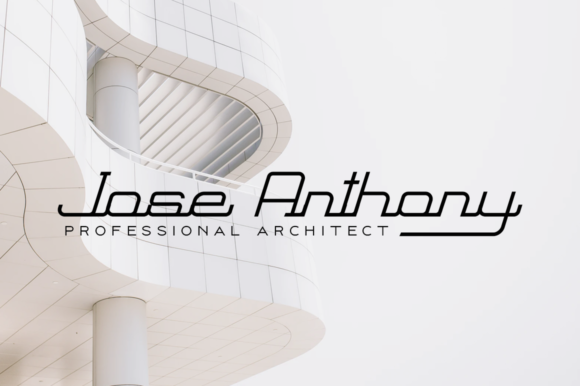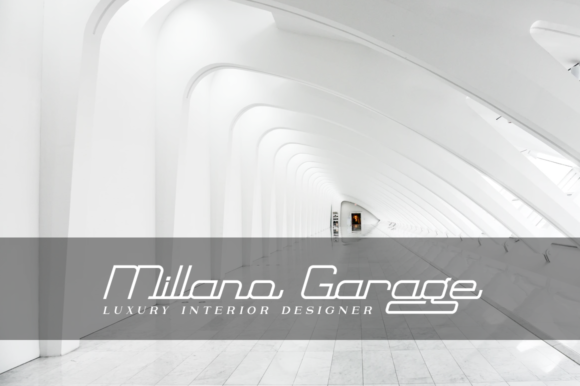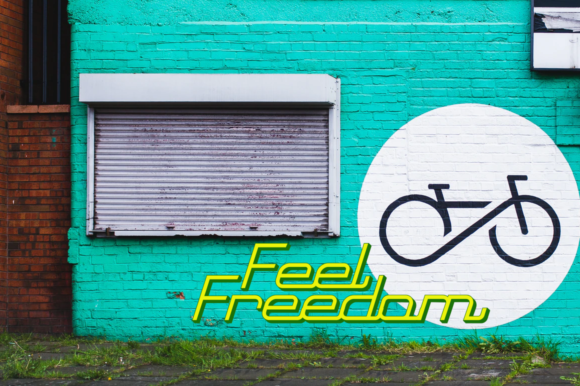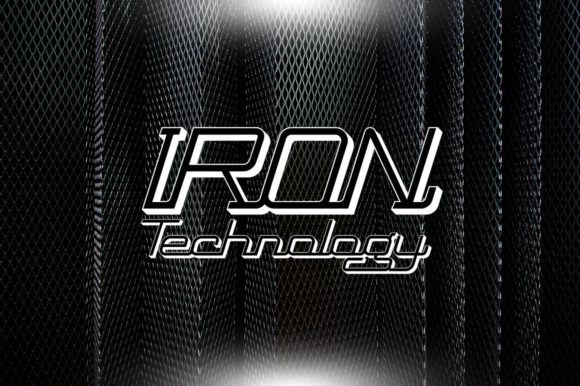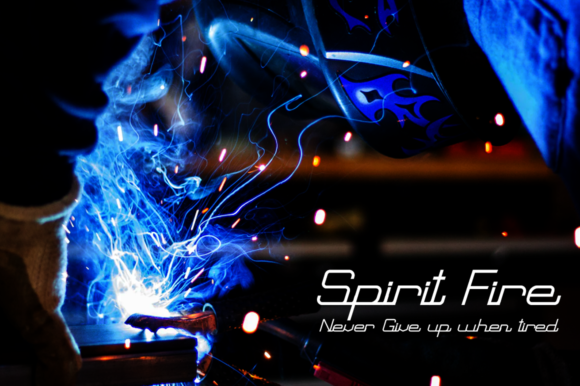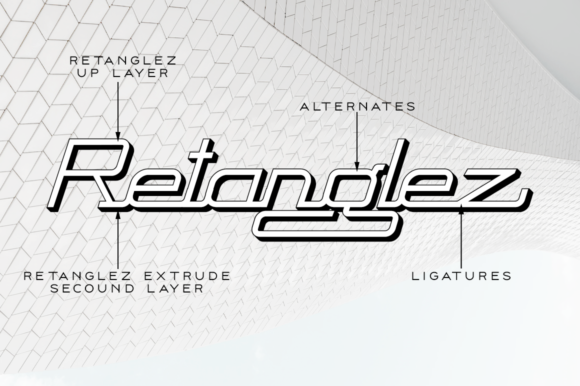
Introduction to Retanglez Font
Retanglez is a unique display font.
It celebrates abstract shapes in all their eclectic beauty This masterfully designed display font is a true must-have.
Key Features of Retanglez Font
Why Choose Retanglez Font?
Retanglez Font offers exceptional quality and versatility, making it a valuable addition to your design toolkit. Whether you’re creating for personal projects or commercial use, Retanglez Font delivers professional results.